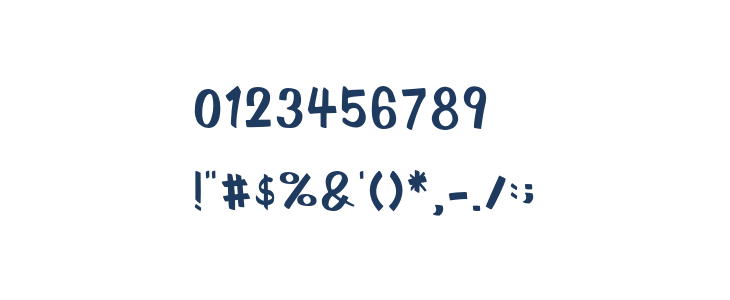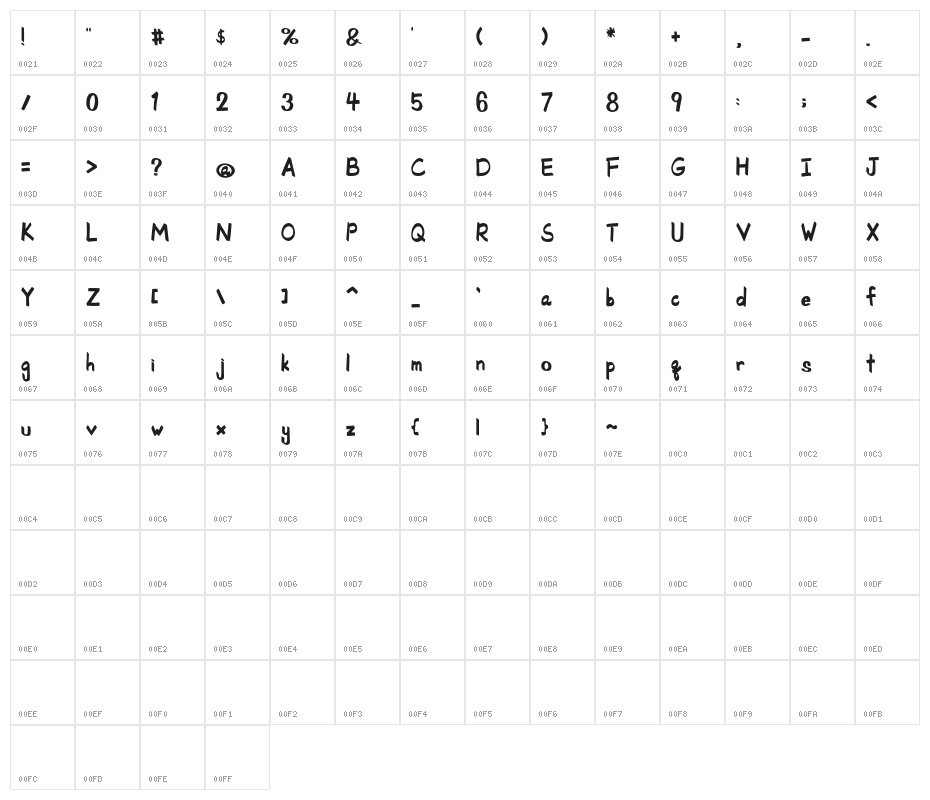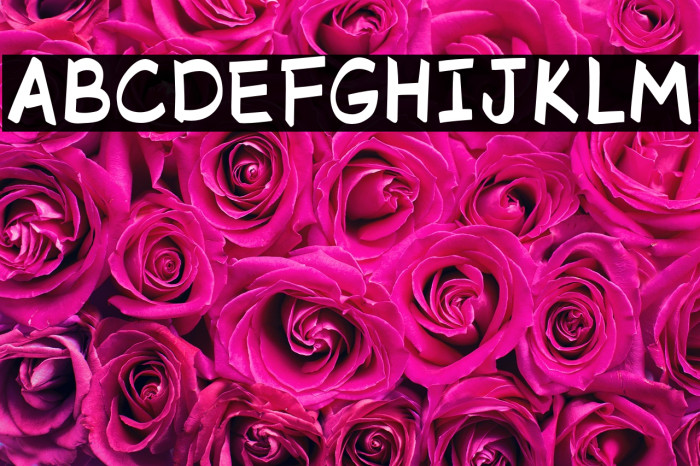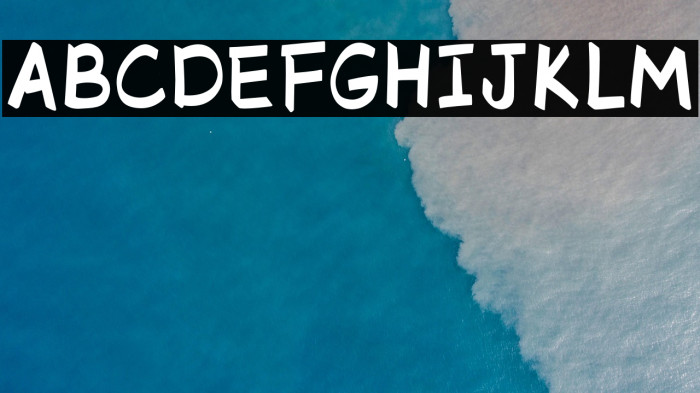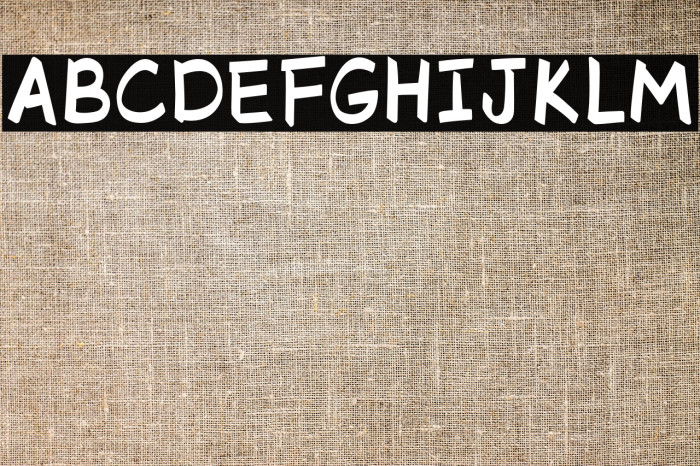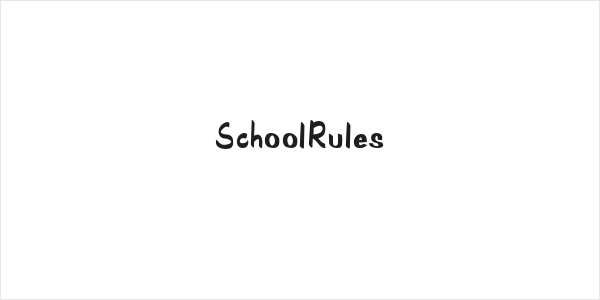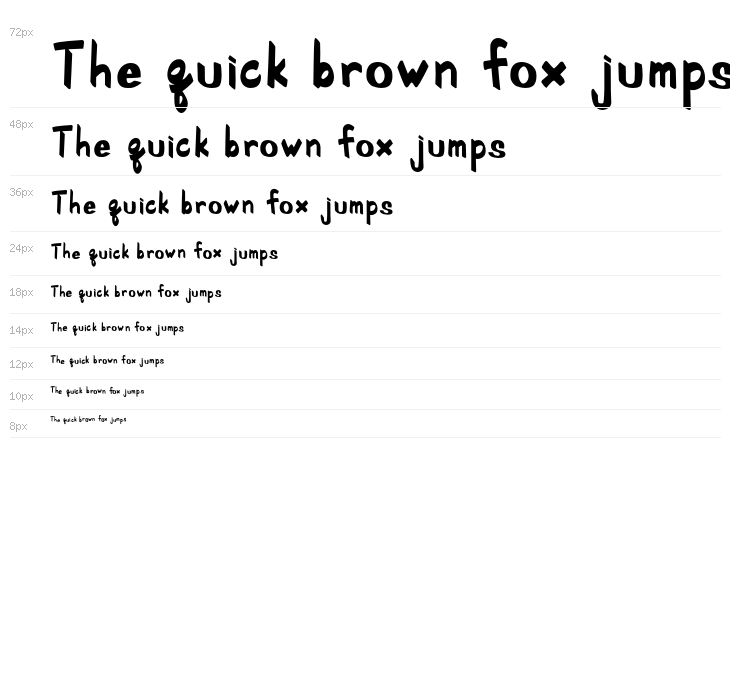
SchoolRules Font
SchoolRules Description
This font features a playful and informal style, characterized by its hand-drawn appearance. The letters have a slightly irregular form, giving them a whimsical and friendly look. The uppercase and lowercase letters are distinct, with a noticeable variation in stroke thickness that adds to the font's charm. The numerals and special characters maintain the same playful aesthetic, making the font versatile for creative projects. Its unique style is suitable for designs that aim to convey a sense of fun and creativity.
| Overall Style | Playful |
| Use Case | Headlines, Logos, Creative projects |
| Proposed Projects | Ideal for children's books, playful branding, greeting cards, and creative posters. |